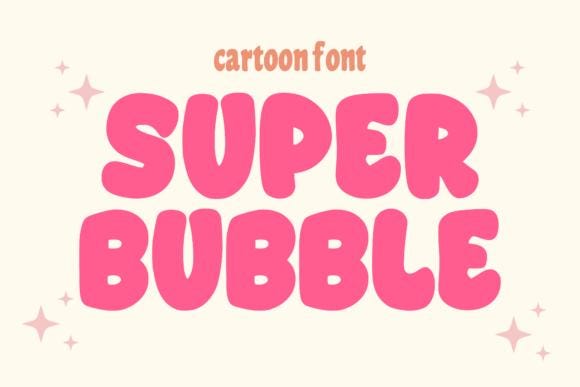
Super Bubble Font
Super Bubble is a modern and bold look of the Super bubble font. This font is ready to use in any project. Perfect for logos, stickers, packaging designs, Cricut projects, news editors, comics, brand identities, t-shirt or clothing industries, posters, magazines, books, YouTube, Instagram, websites or any of your other creative design projects.